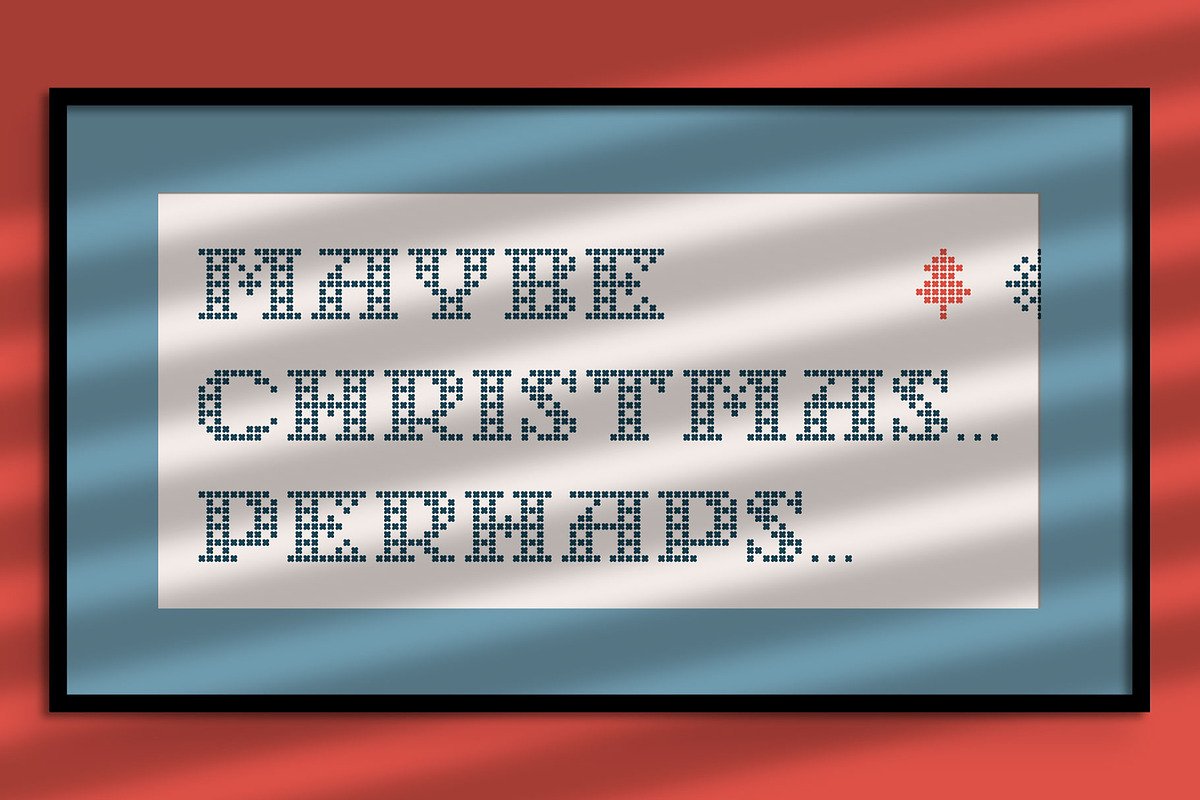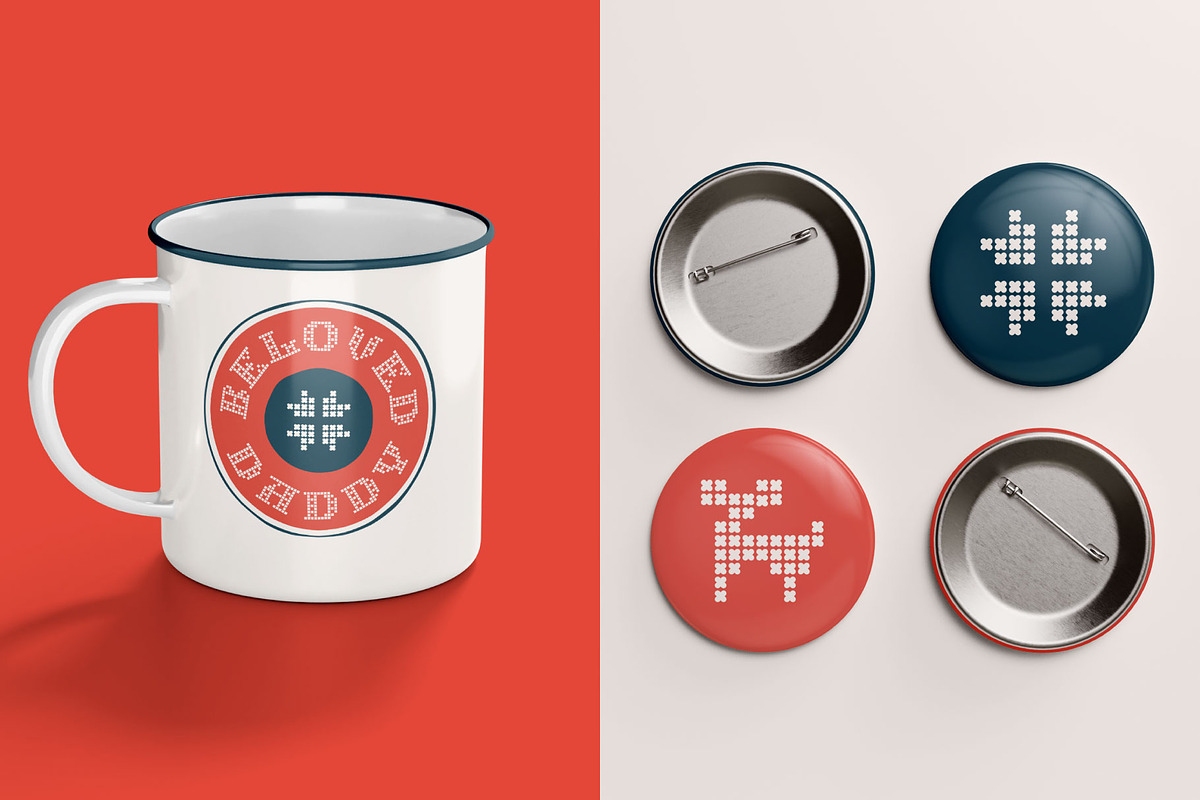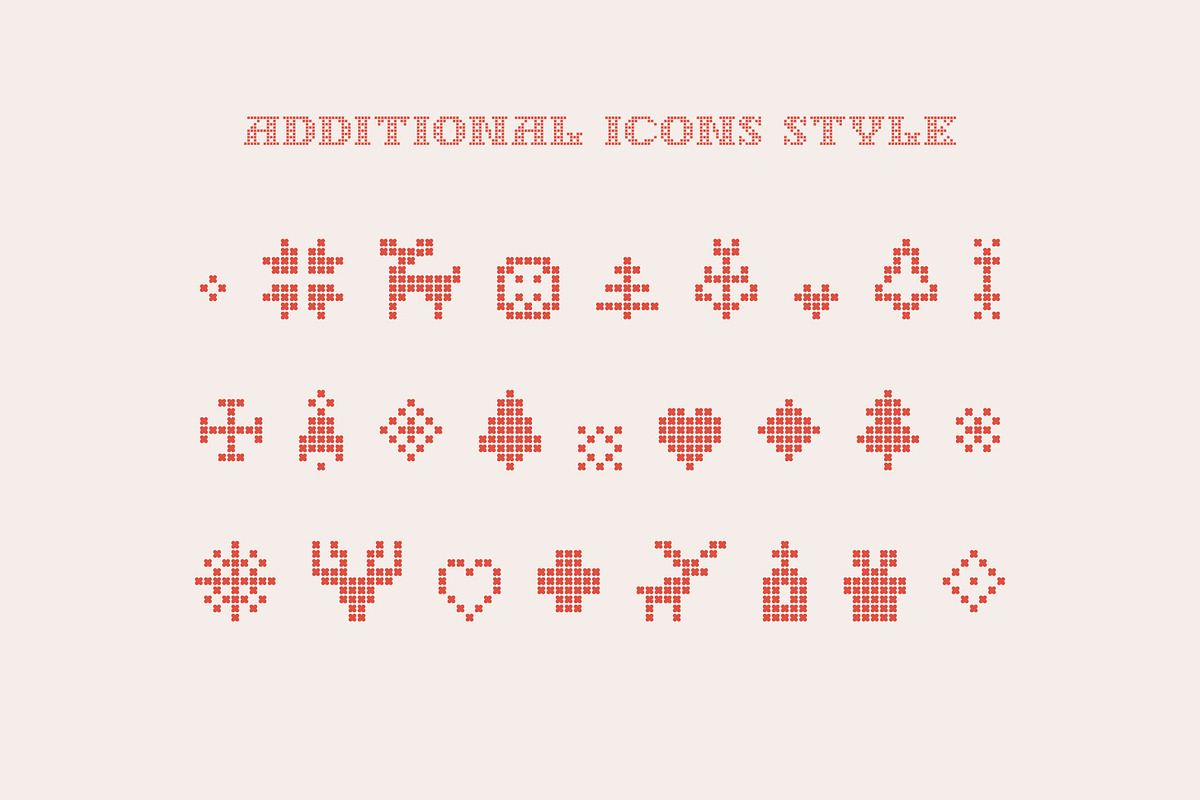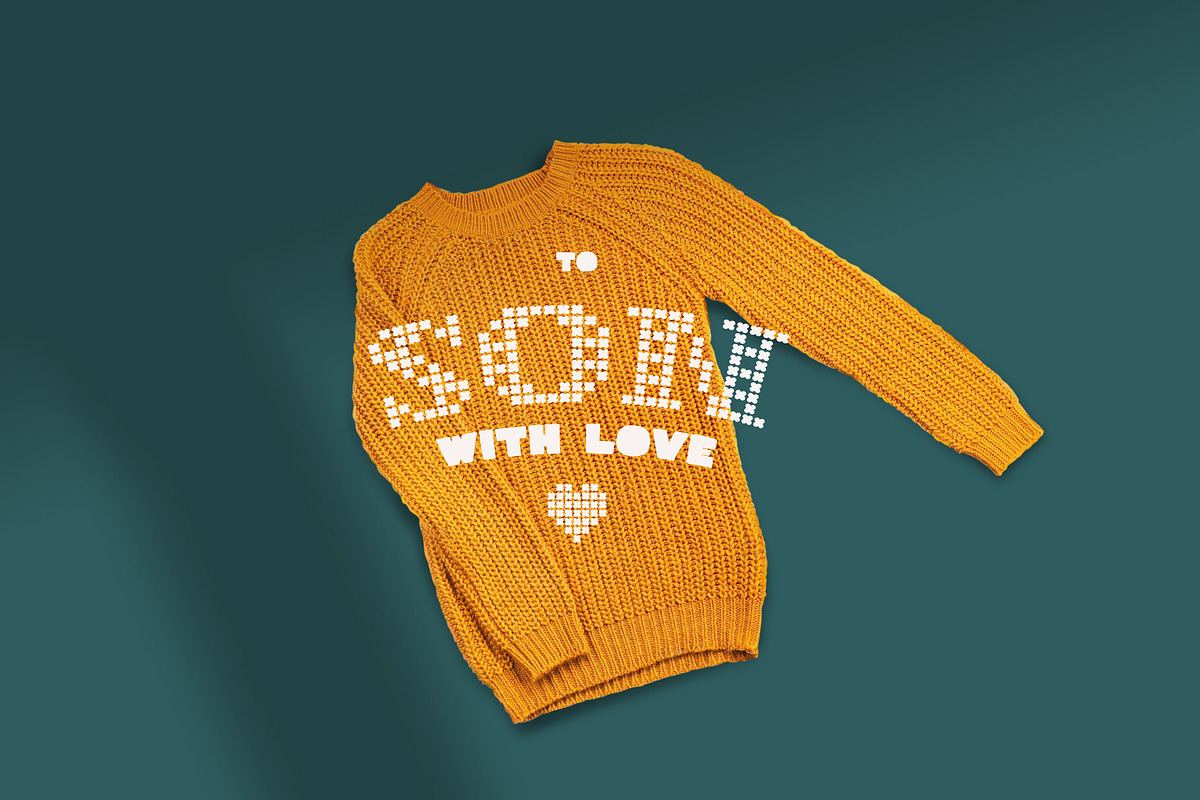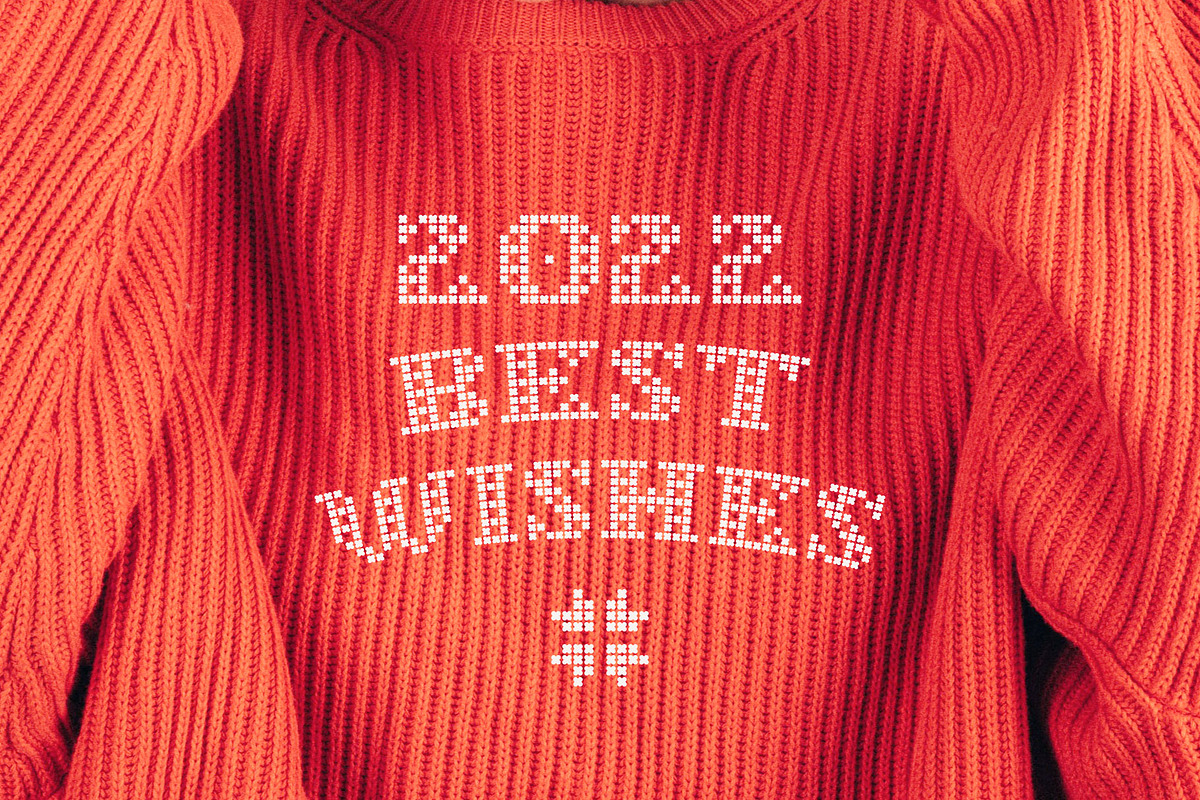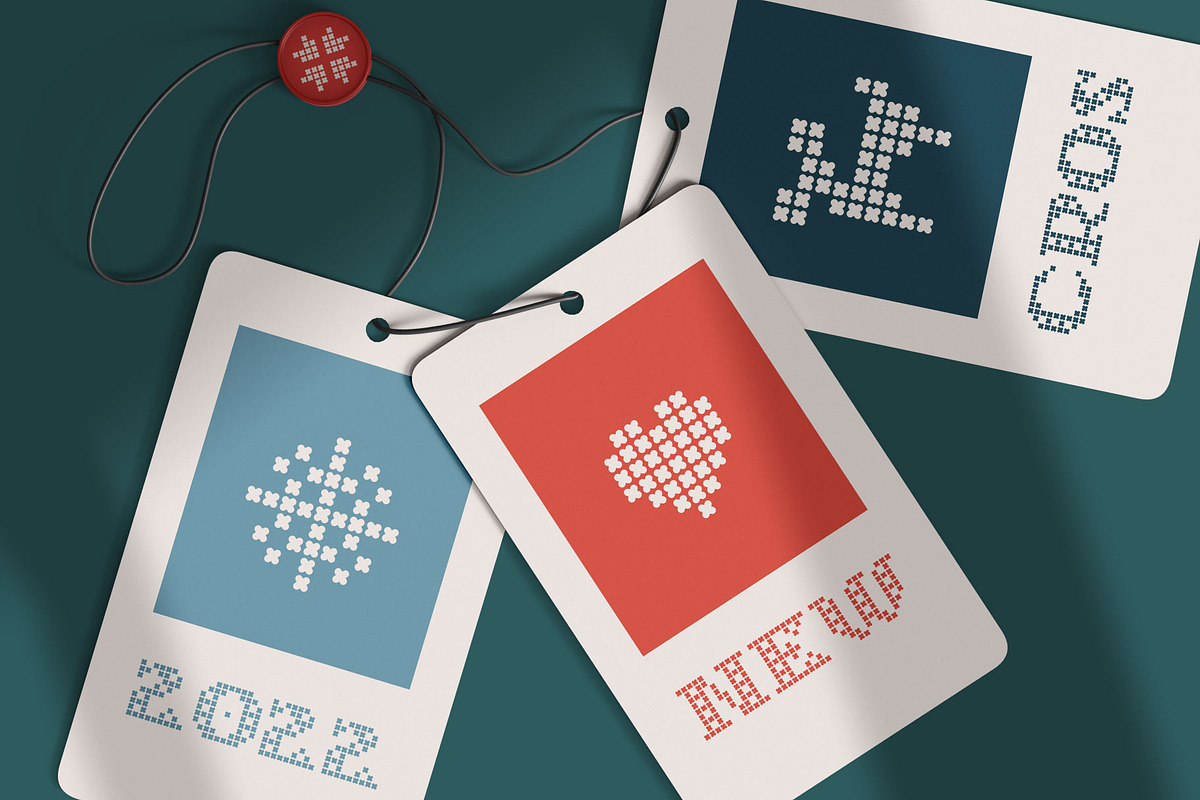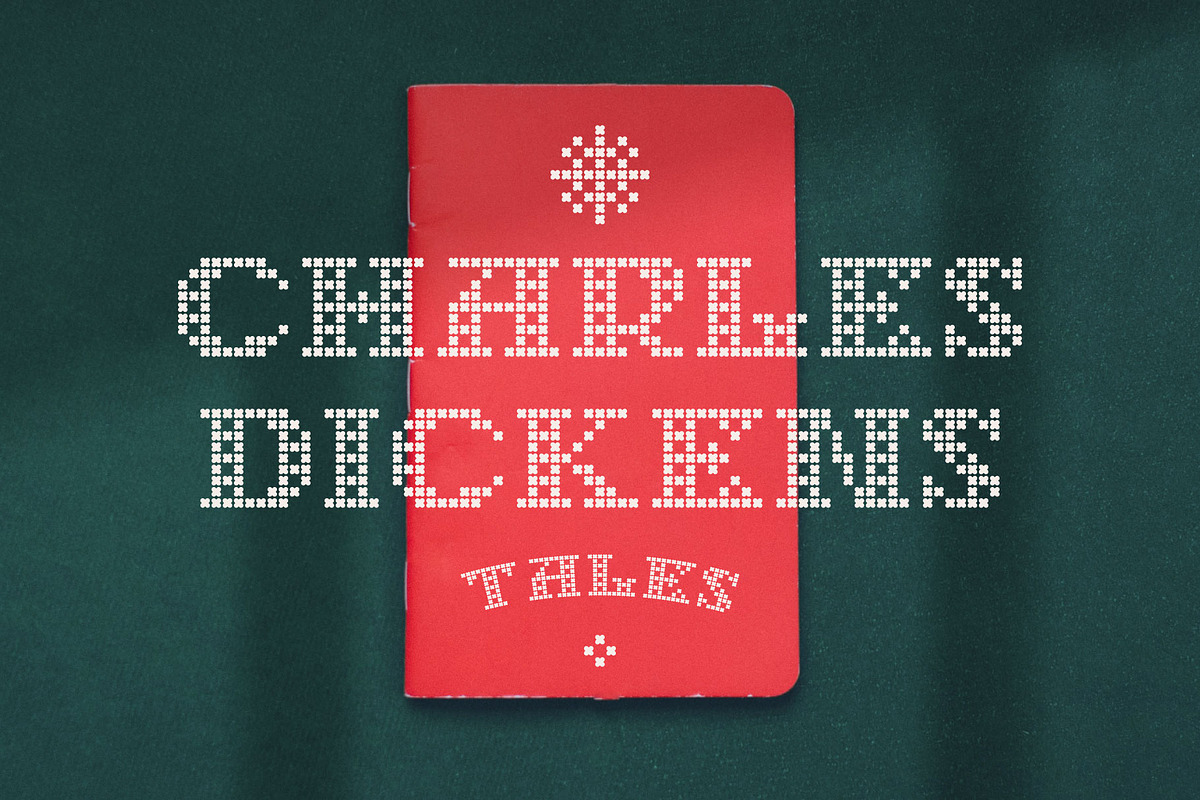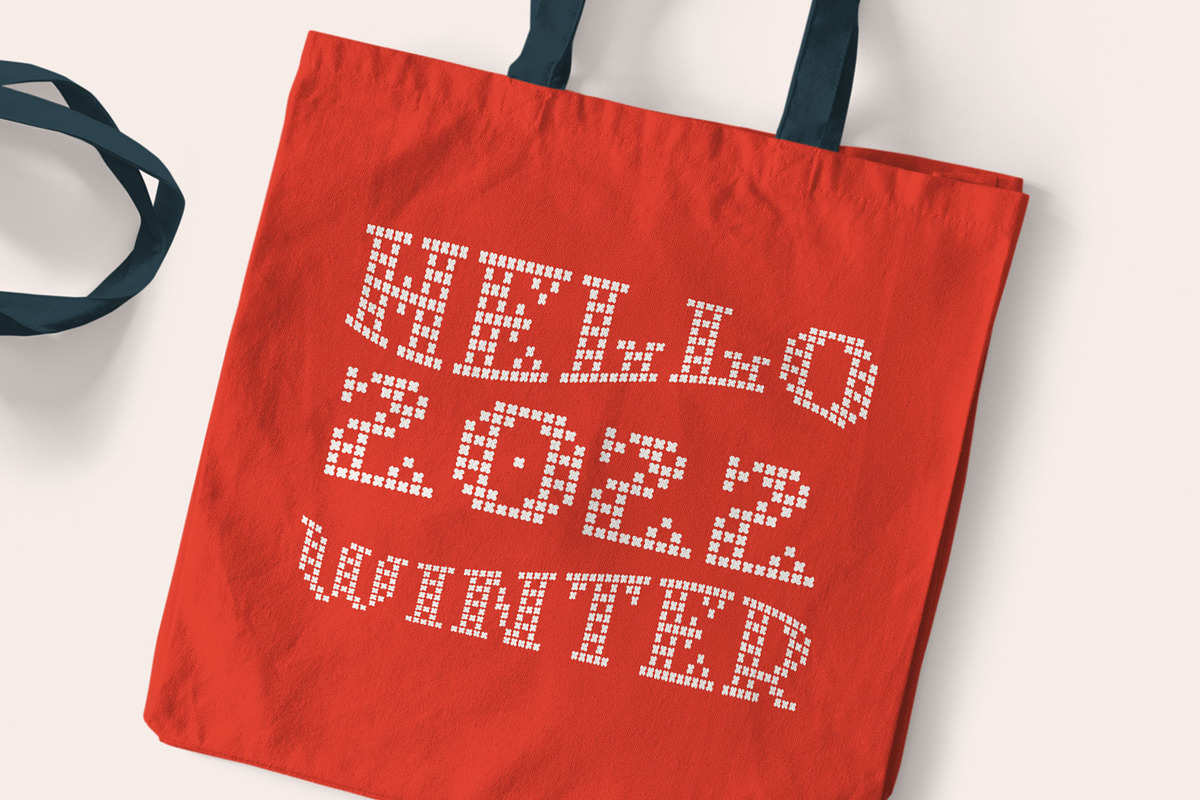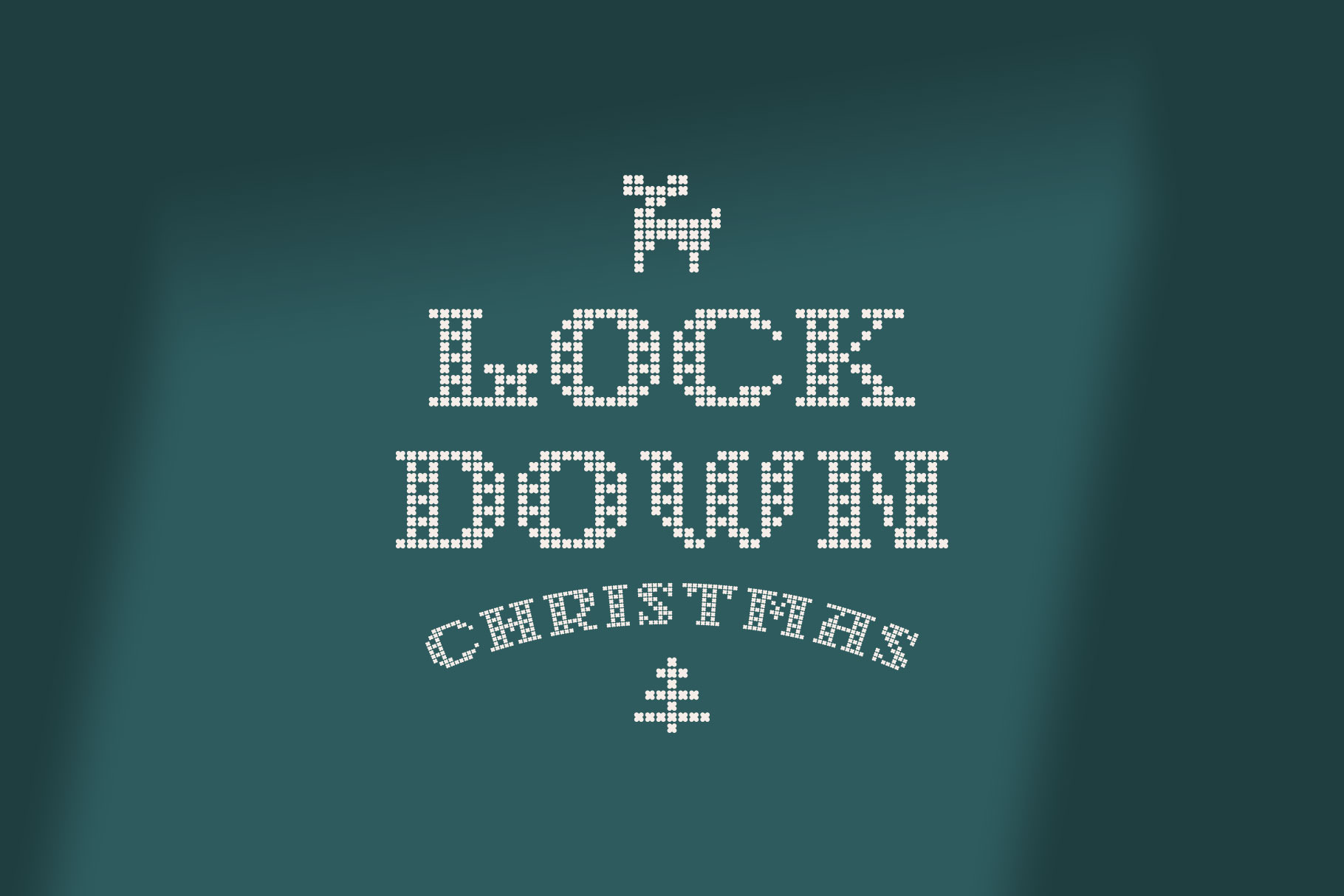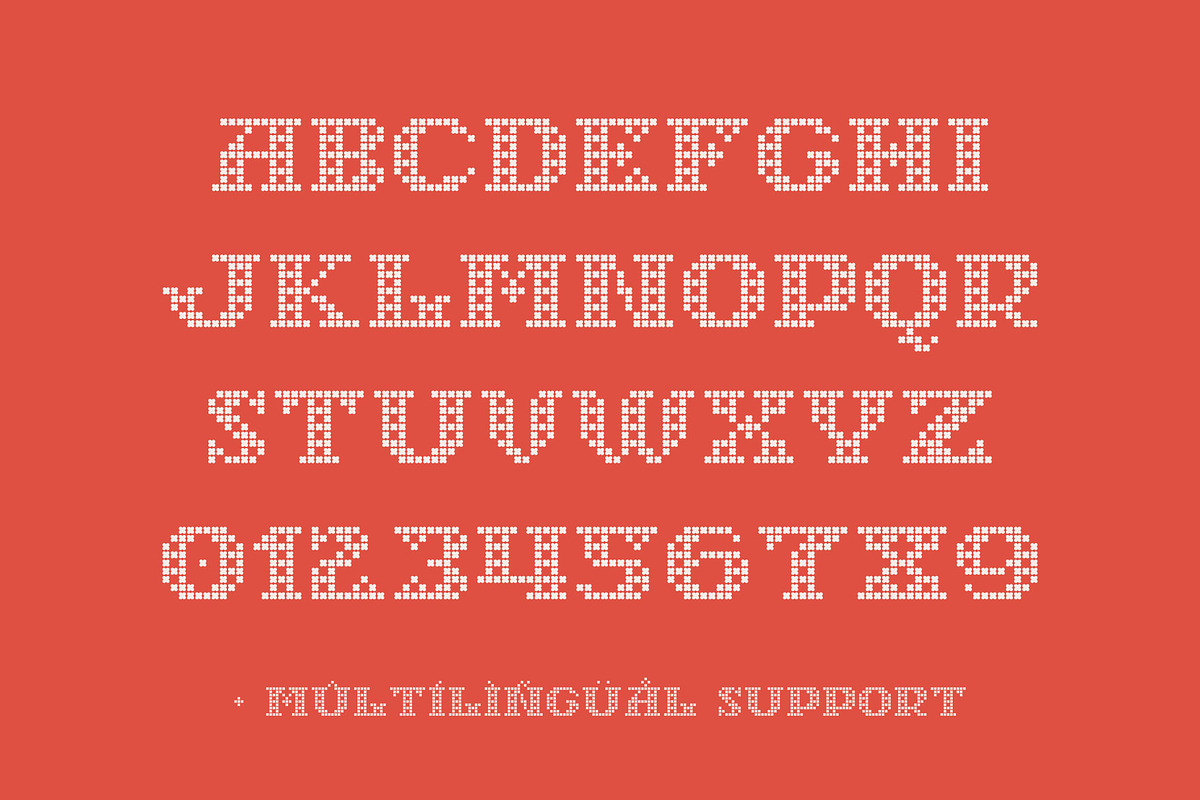
Lockdown Christmas - knitted fonts
Lockdown Christmas is a knitted fonts family in regular and icons styles. All letters are inspired by sweater designs made of bold round knits. Just take a try!
- Uppercase symbols font
- Numbers and symbols